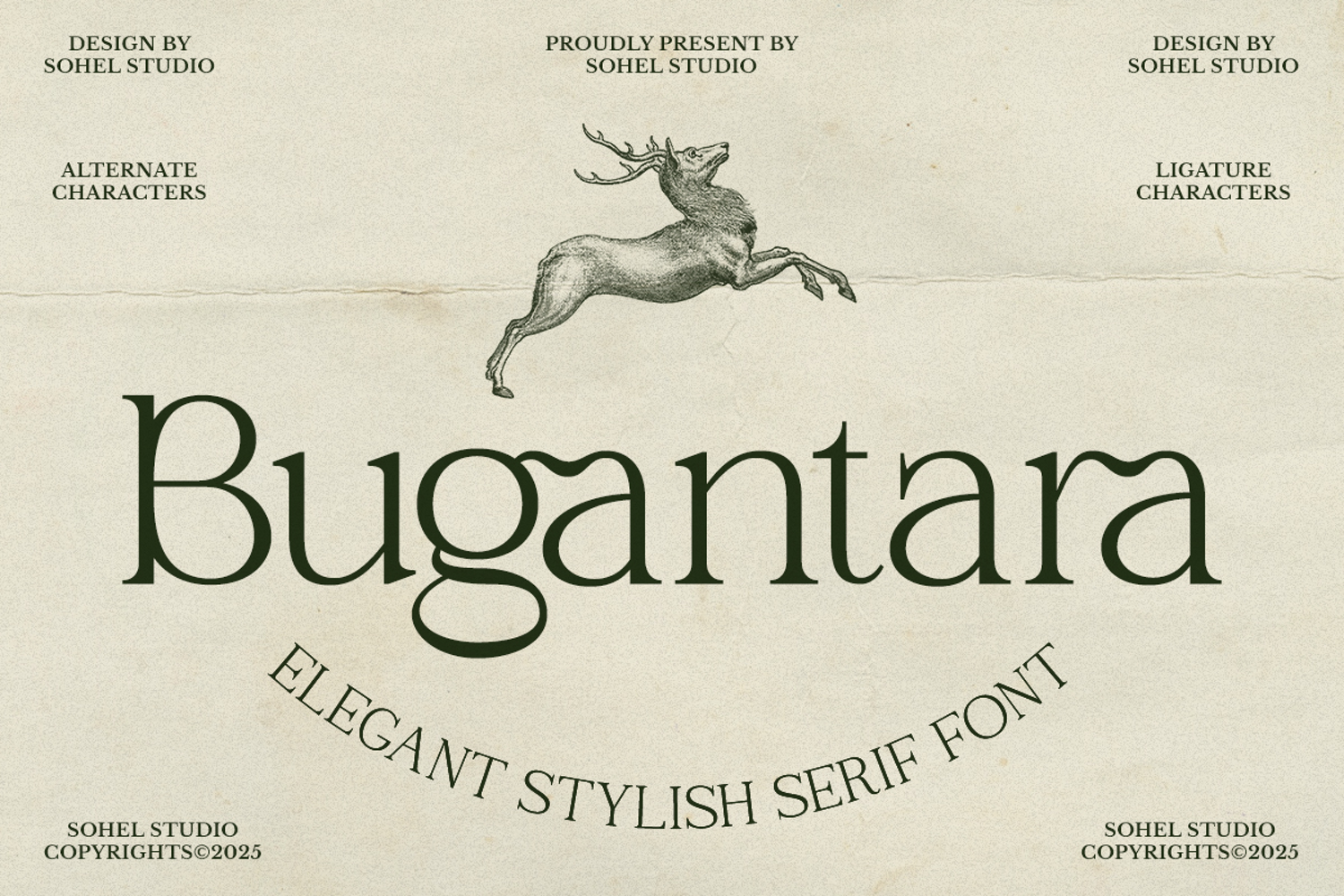
Bugantara - Elegant Thin Serif Font
Bugantara is an elegant and stylish thin serif font that embodies sophistication and timeless beauty. With its refined letterforms, delicate strokes, and carefully crafted ligatures, Bugantara is perfect for luxury branding, editorial design, high-end packaging, wedding invitations, and more. This font blends classic aesthetics with modern elegance, making it an ideal choice for designers seeking a premium and distinguished typeface. Elevate your designs with the graceful and artistic presence of Bugantara.
Bugantara is a display serif that channels both historic gravitas and modern restraint. Designed with high-contrast strokes and sinuous alternate characters, this font evokes the texture of old-world craftsmanship while delivering a clean, contemporary silhouette.
Each letterform in Bugantara feels intentional — with subtle tension in its curves, graceful terminals, and elegant ligatures that add natural rhythm to your typography. The sculpted g and a alternates give it an artisanal flair, while maintaining a strong editorial backbone.
It feels as much at home in a literary journal as it does on a slow-luxury skincare label. Bugantara is built for designers who crave meaning in their type — who understand that form is not just function, but feeling.
• Elegant Thin Serif Style: Adds a touch of sophistication to any project.
• Unique Alternates: Provides creative flexibility and uniqueness.
• Versatile Use: Ideal for branding, invitations, magazines, logos, and more.
• High-End Aesthetic: Perfect for luxury and refined design projects.
• Full Set of Characters: Uppercase, lowercase, numerals, punctuation, and symbols.
• Unique Alternates: For creating distinctive and personalized designs.
• Multilingual Support: Includes characters for multiple languages.
• Bonus Glyphs: Additional decorative elements to enhance your designs.